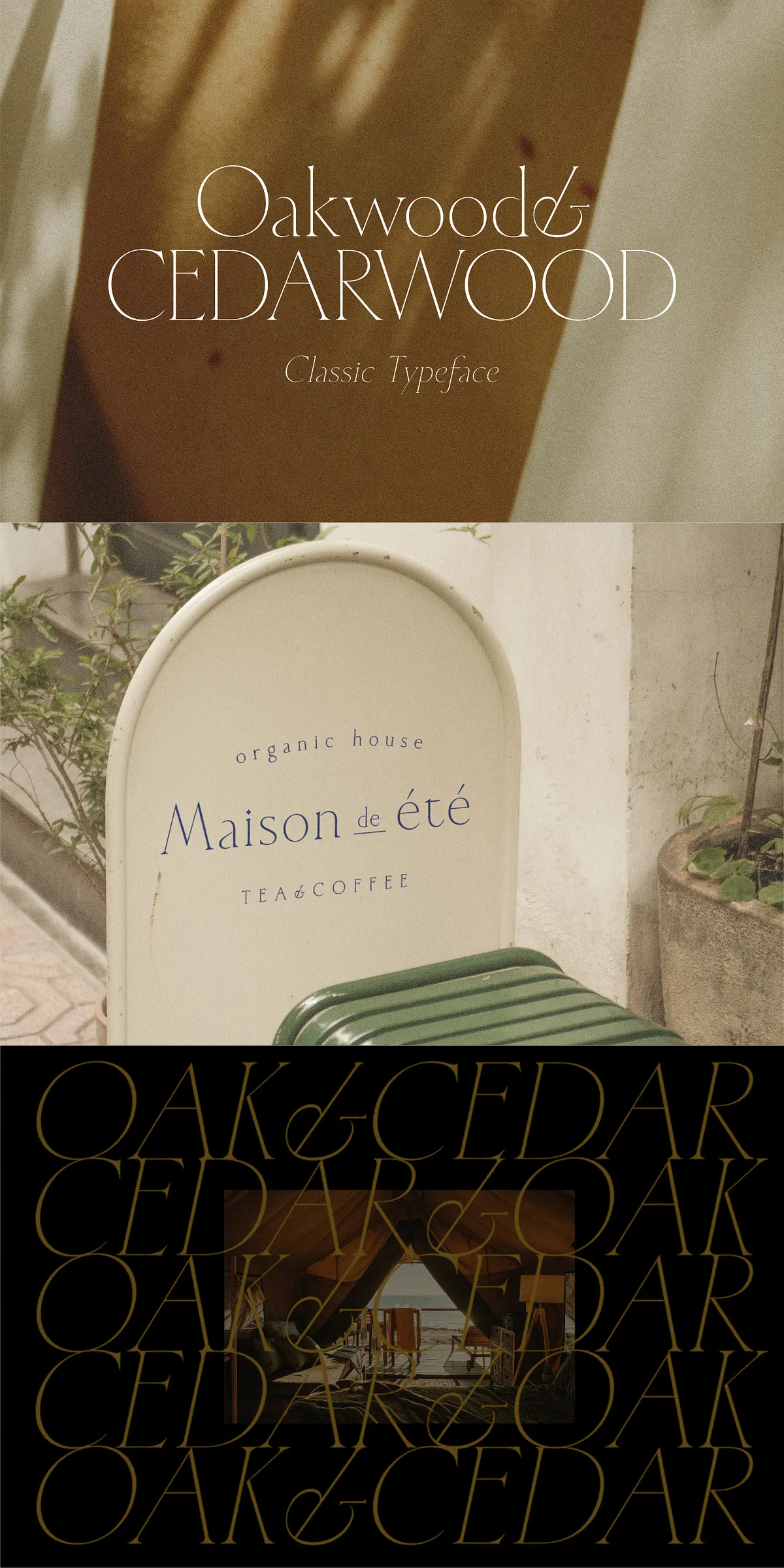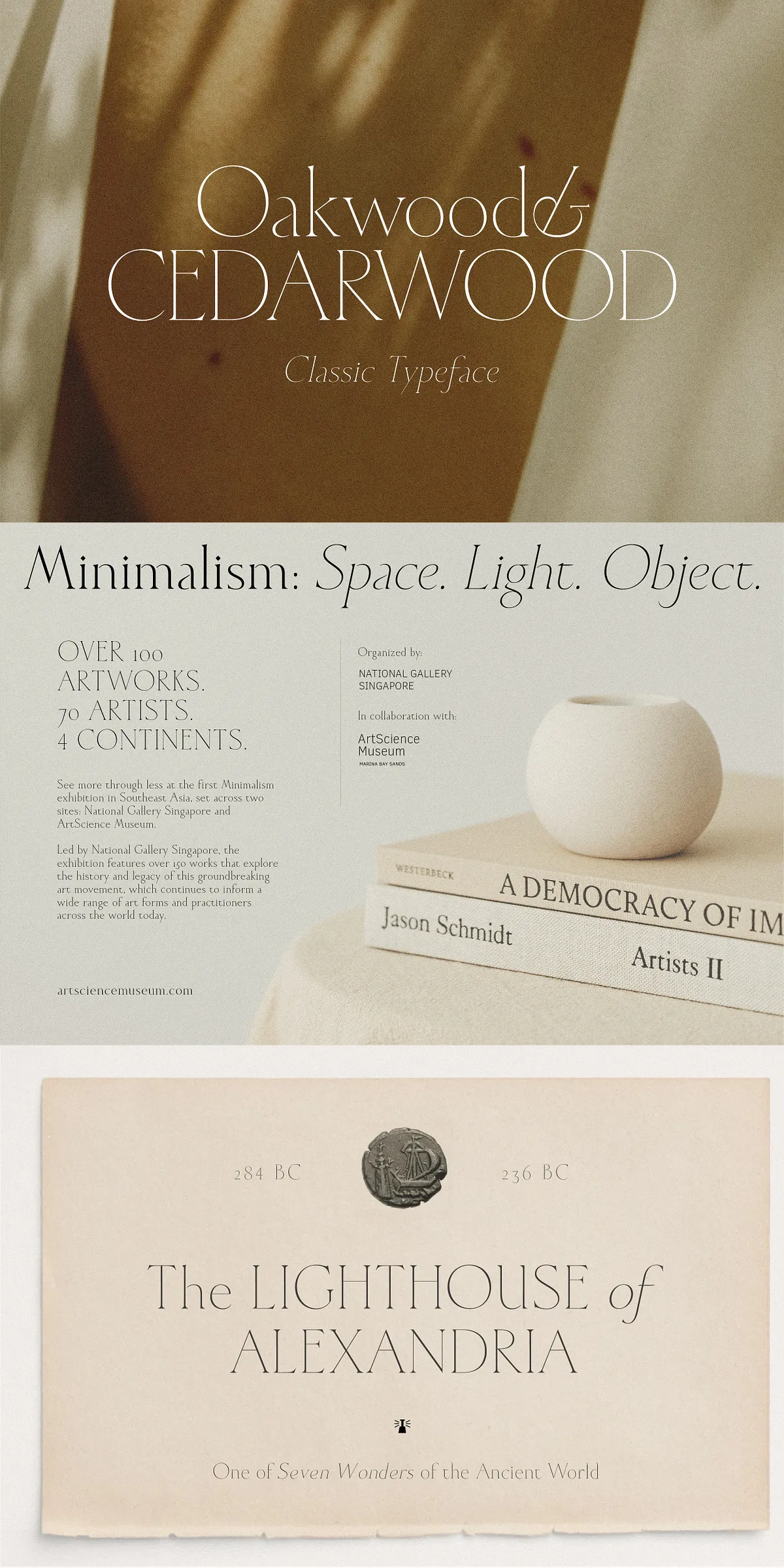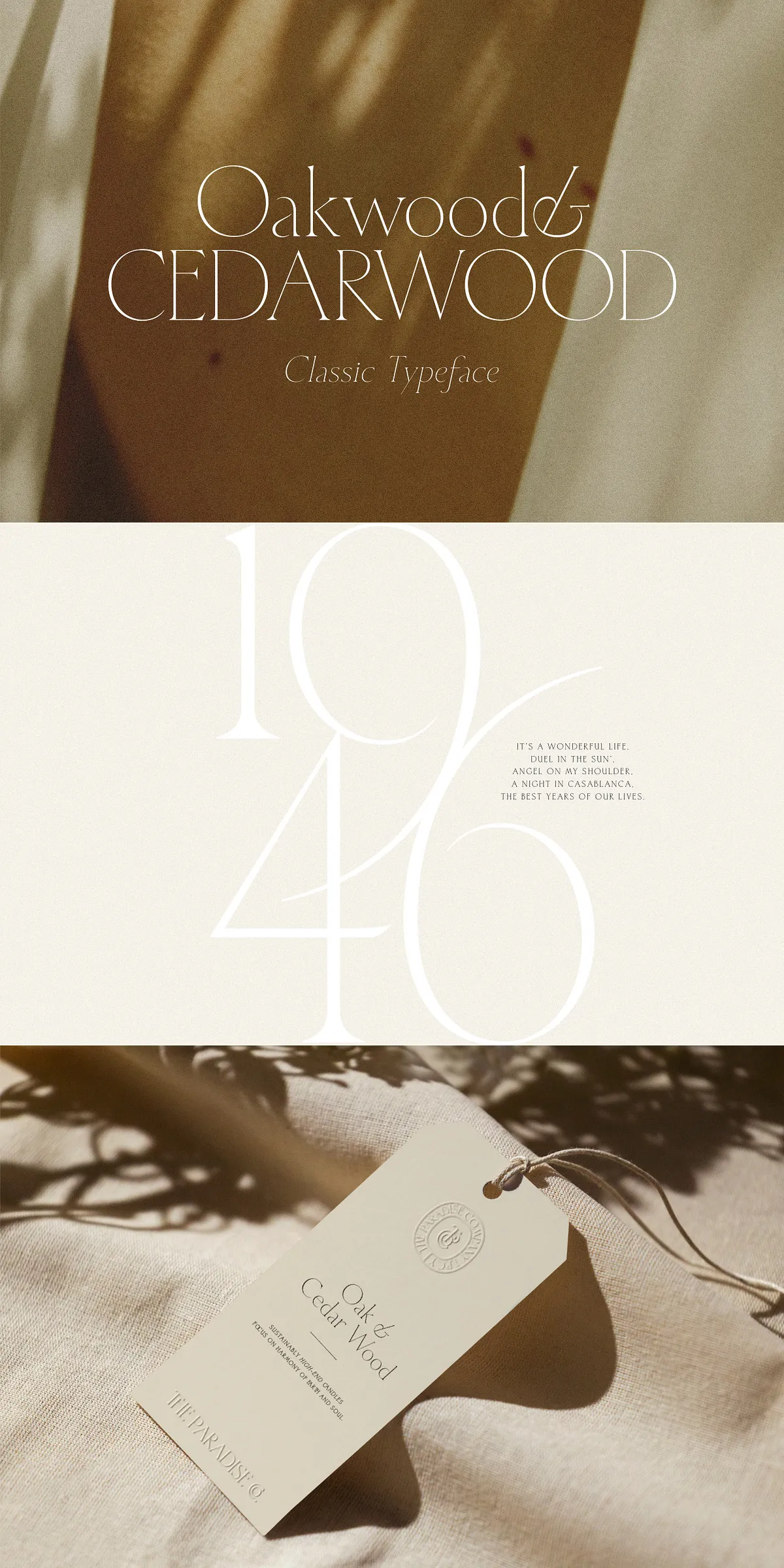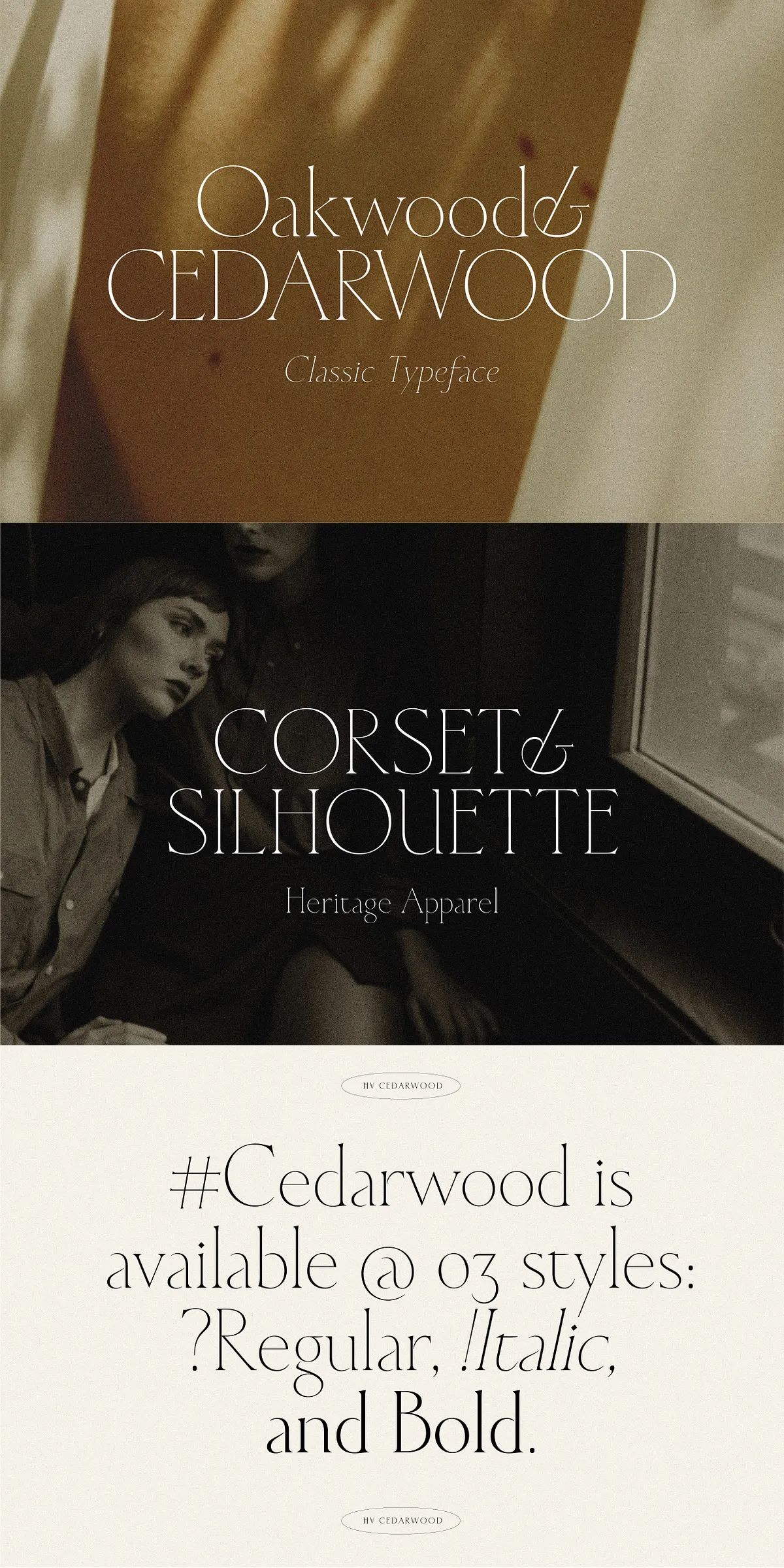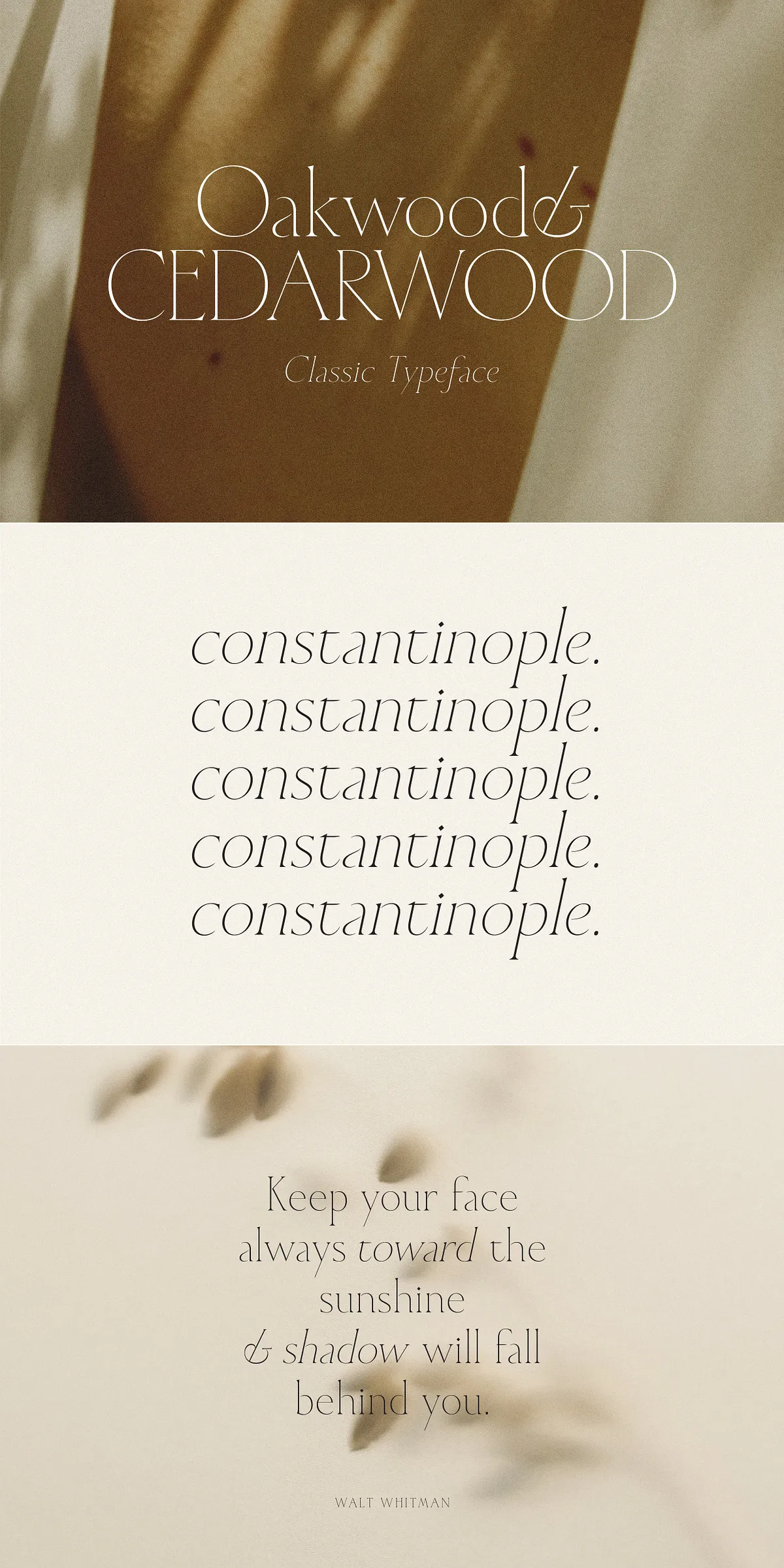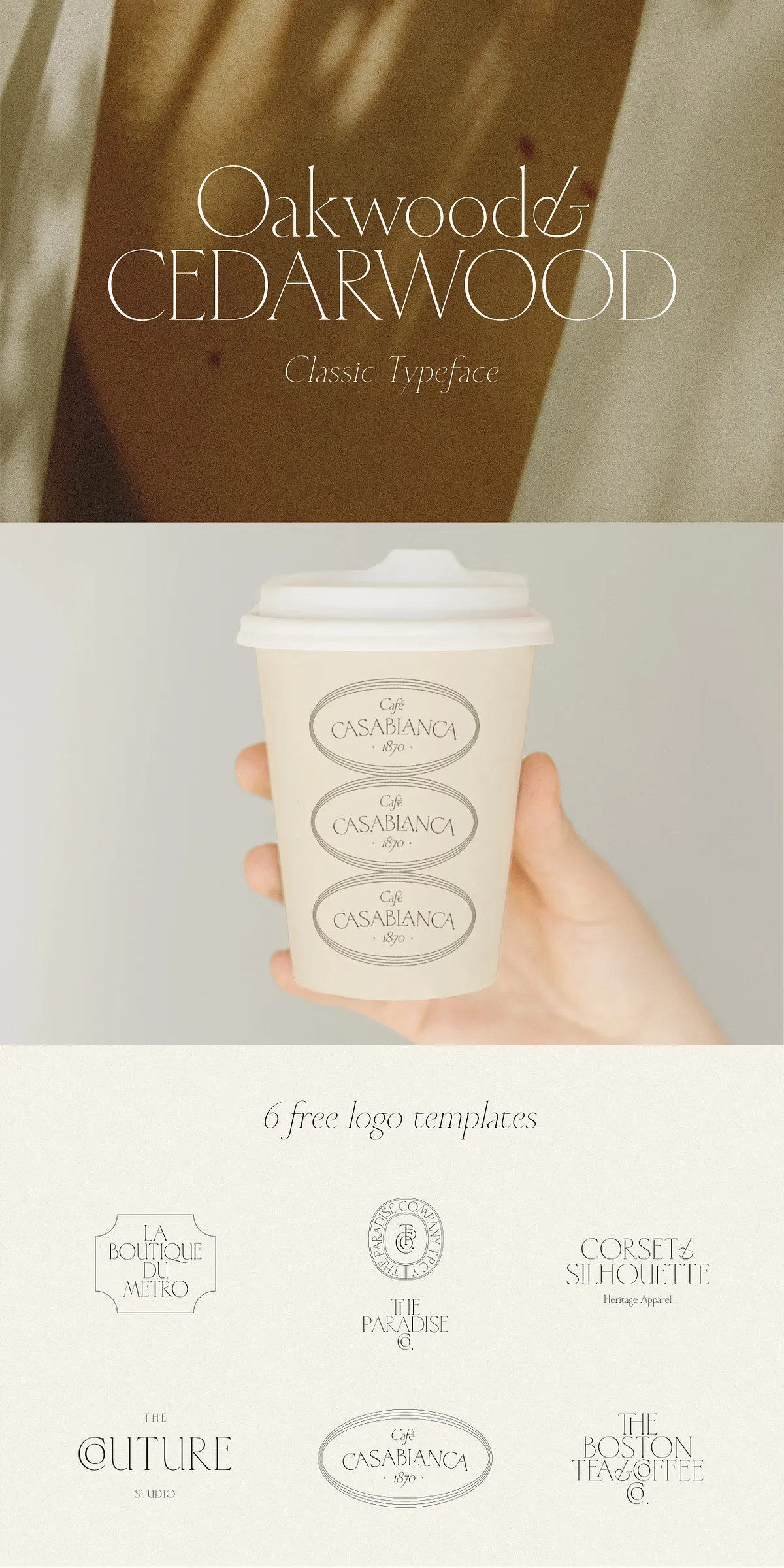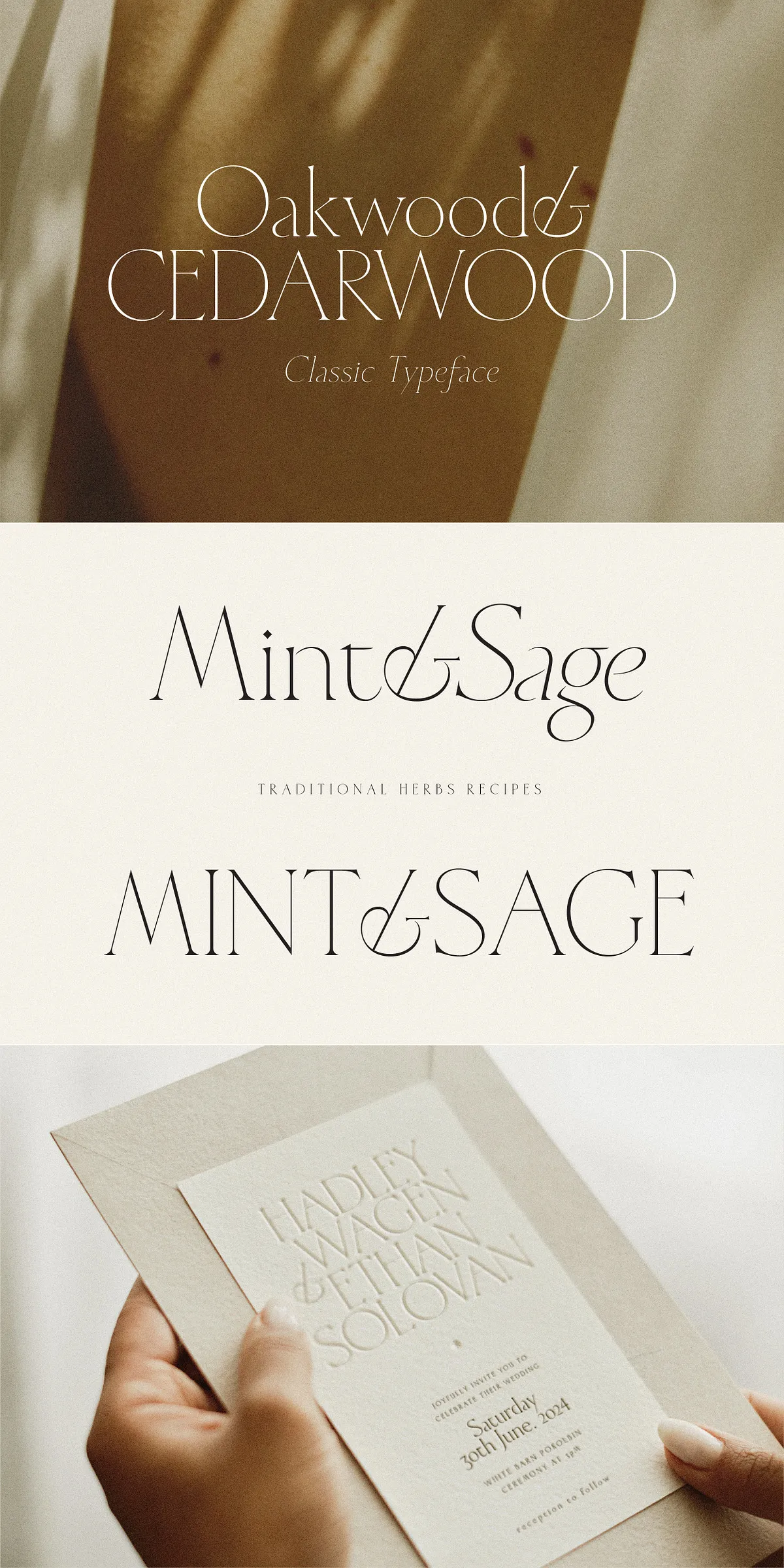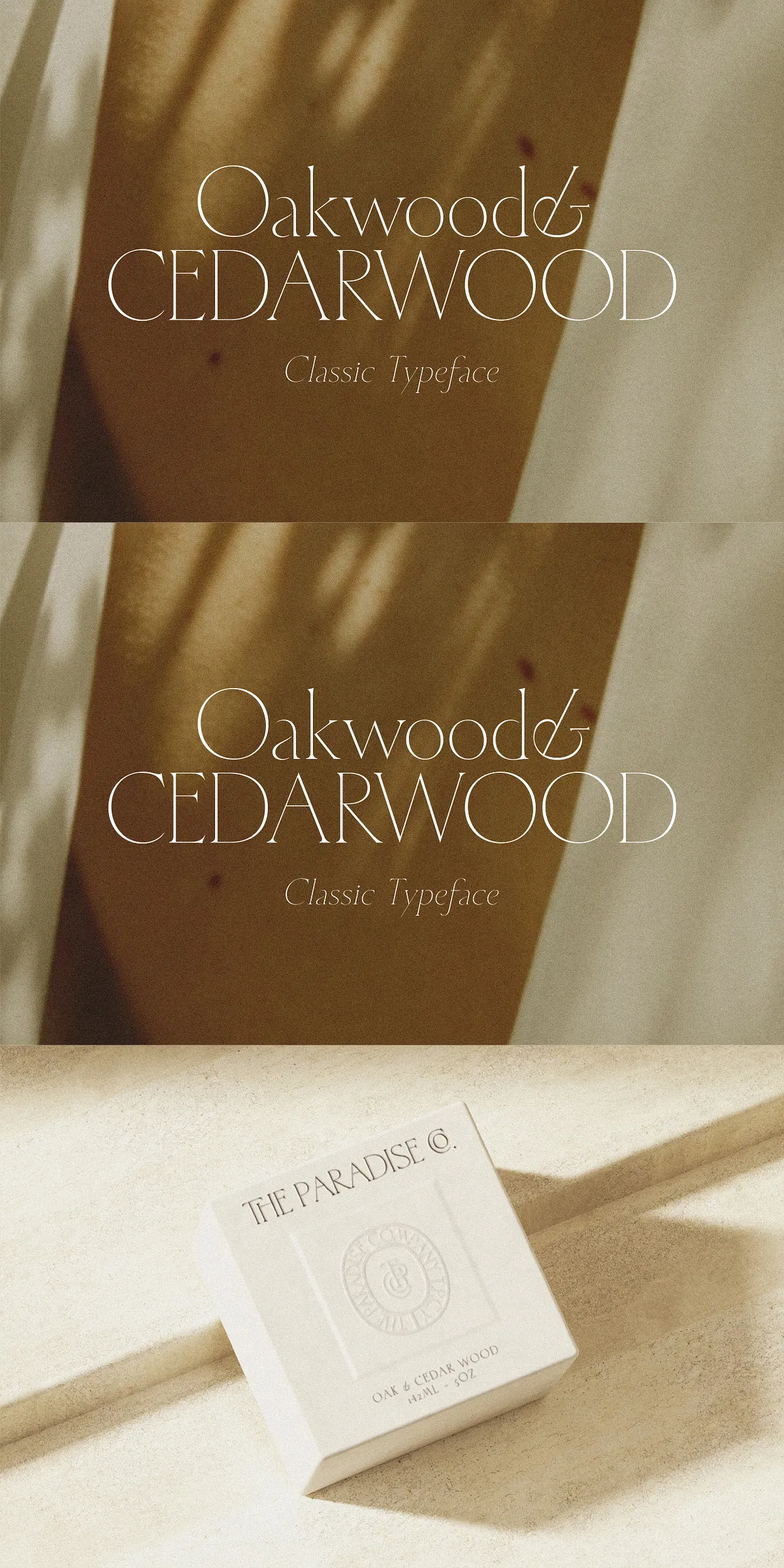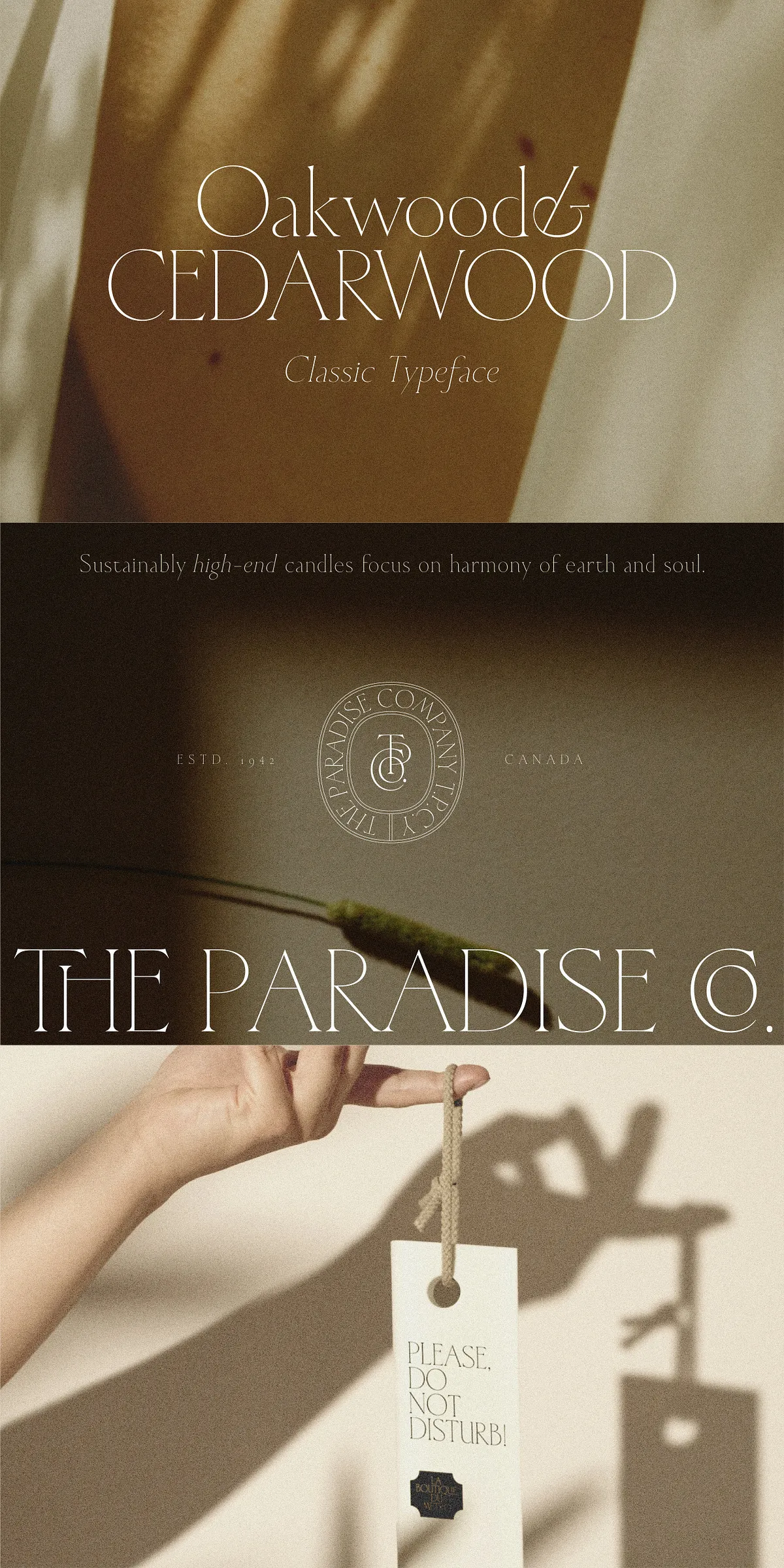
Step into a world where tradition meets refined craftsmanship with Cedarwood, a classic serif font that channels the grandeur of the old masters while delivering modern functionality. Every curve, stroke, and serif is meticulously designed to convey sophistication, strength, and timeless beauty—making it the ideal choice for projects that demand distinction.
Cedarwood isn’t just a typeface; it’s a statement of aesthetic authority. Whether you’re crafting a luxury brand identity, designing premium packaging, or laying out an editorial masterpiece, this font brings a sense of weight, dignity, and artistry that instantly elevates your work.
Why Cedarwood Is the Ultimate Choice for High-End Design
Built for professionals who demand excellence, Cedarwood blends historical inspiration with contemporary precision. Its balanced contrasts, harmonious spacing, and expressive serifs create a visual rhythm that draws the eye and holds attention—without ever feeling excessive or cluttered.
- Regal, Classic Serif Style – Inspired by 18th and 19th-century typefaces, with graceful, hand-crafted charm and subtle elegance.
- Full Multilingual Support – Includes extensive coverage for European languages, Vietnamese, and additional Unicode characters for global-ready branding projects.
- OpenType Ligatures – Access a rich set of custom-connected letters (ligatures) for flowing, artistic text—ideal for titles, headings, and branding.
- Three Weight Variants – Regular, Italic, and Bold styles for versatile typographic hierarchy and design flexibility.
Where Cedarwood Transforms Ordinary Projects into Masterpieces
From editorial spreads to luxury product labels, Cedarwood enhances every application with a sense of heritage and prestige. Here’s where it truly shines:
- Brand & Logo Design – Create powerful, memorable identities for fashion houses, wine labels, boutique retailers, and artisan brands.
- Premium Packaging & Labeling – Make your products stand out with a font that whispers luxury and commands respect on shelves.
- Editorial & Magazine Layouts – Add historical depth and artistic flair to feature articles, book covers, and lifestyle content.
- Wedding Invitations & Stationery – Design timeless, elegant invitations with a touch of classic romance.
- Website Headers & Callouts – Use Cedarwood Bold for impactful headings that grab attention and set the tone.
- Advertising & Promotional Campaigns – Make brand messaging resonate with sophistication and authority.
Pro Tip: For maximum visual impact, pair Cedarwood with clean, minimalist sans-serif fonts for body text—letting the serif take center stage while maintaining modern balance.
Typography That Speaks Without Saying a Word
Cedarwood doesn’t announce its importance. It exudes it. It’s for the designers who know that the right font doesn’t just communicate a message—it defines a mood, a legacy, a personality.
Elevate Your Work with a Font Built for Legacy
This isn’t just another serif font. It’s a design tool with soul. Use Cedarwood to craft stories that linger in memory, identities that endure, and visuals that inspire awe.